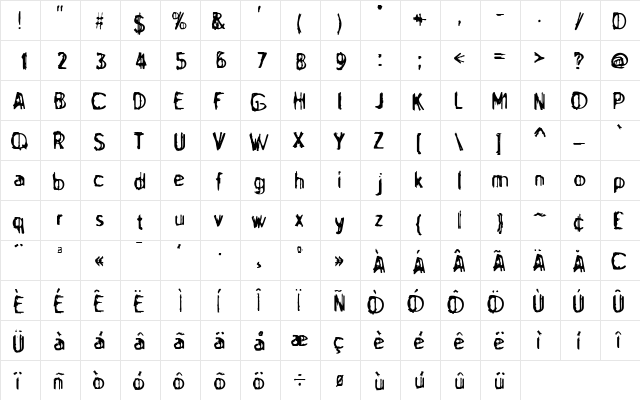
BlueLacke Medium
Design Context for BlueLacke Typeface
BlueLacke is a composed and adaptable typeface that performs quietly and consistently across a wide range of design contexts.